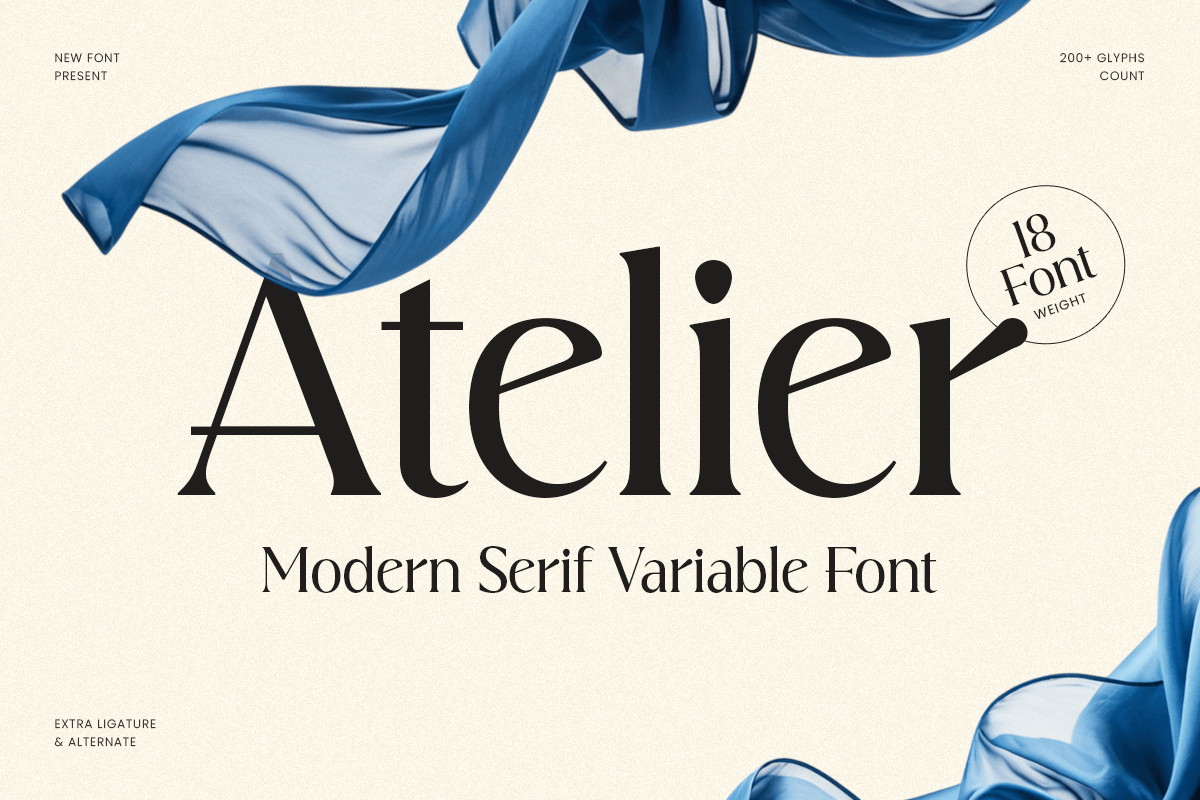
Atelier
-Modern Serif Variable Font Family
Atelier - Modern Serif Variable Font Family
Atelier is a modern serif variable font family crafted for designers who want elegance with full typographic flexibility. With refined serif details, balanced proportions, and a contemporary editorial tone, this family delivers a premium look that feels clean, confident, and highly adaptable across modern brand systems.
Built for both branding and long-form layouts, Atelier shines in logos, wordmarks, editorials, magazine spreads, website headers, UI typography, presentations, packaging, posters, and social media graphics. The variable format makes it easy to fine-tune weight and presence—helping you maintain a consistent identity while adjusting typography for different screens, sizes, and layout needs.
Whether you’re creating a fashion-led brand, a modern corporate identity, a premium product line, or a sophisticated editorial design, Atelier gives you a flexible serif foundation that feels timeless, polished, and unmistakably professional.
Inspiration Behind Atelier
ATELIER is inspired by modern editorial typography and contemporary brand systems—where clarity, refinement, and versatility shape the visual voice. The design focuses on elegant serif structure and smooth variable control to support premium branding, responsive digital typography, and clean print layouts with an elevated modern feel.
Atelier Font Features:
• Modern serif letterforms with refined editorial character
• Variable font family for flexible weight control and responsive typography
• Perfect for branding systems, editorials, and premium identity design
• High readability for headlines, layouts, and professional typography
• Brand identity systems, logos, and modern wordmarks
• Editorial design, magazines, lookbooks, and headline typography
• Websites, UI/UX, presentations, and digital product typography
• Premium packaging, labels, posters, and refined marketing layouts
• Social media campaigns, ads, and professional print design
Design with precision and elegance using Atelier—a modern serif variable family built for flexible, premium branding. ✨